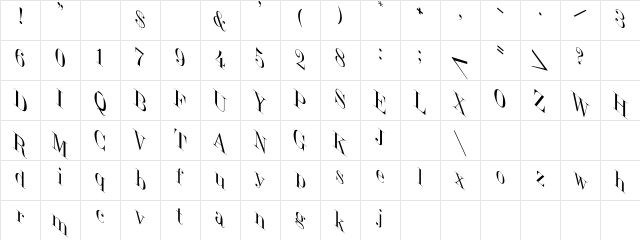
JumbleItalic Regular
Design Context for JumbleItalic
JumbleItalic is a composed and adaptable typeface that performs quietly and consistently across a wide range of design contexts. The slanted form adds forward momentum and visual energy.
Pro Tip: Use JumbleItalic for emphasis, pull quotes, and subheadings where its slanted energy can add rhythm to the layout.